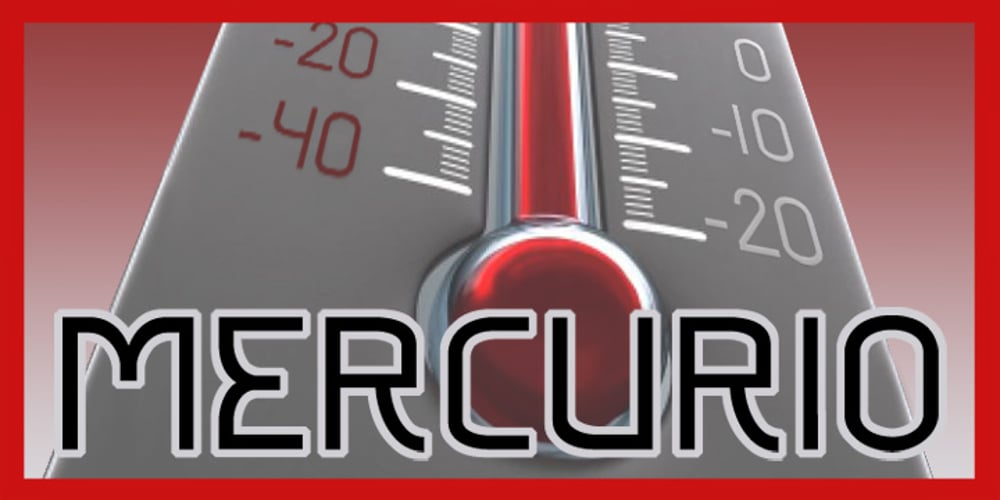
Mercurio
Mercurio font
Mercurio Font Family was designed by Grégoire Pierre and published by Cubo Fonts. Mercurio contains 4 styles and family package options. Mercurio is a sans serif type, inspired by scientific symbolism. It has a soft grey appearance suitable for text.